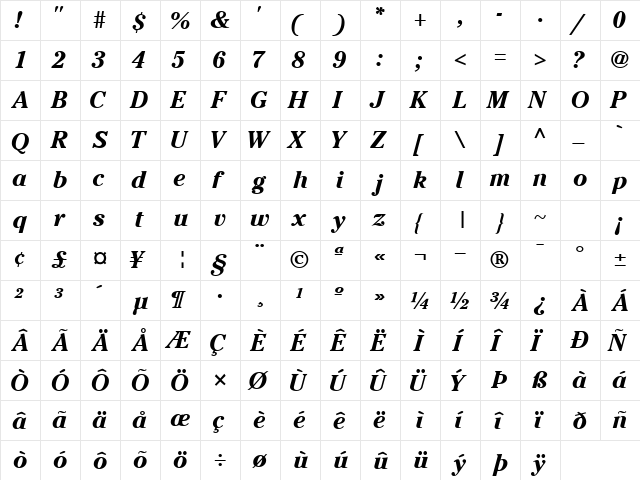
CheltenhamSSK Bold Italic Font Preview
Design Context for CheltenhamSSK Typeface
CheltenhamSSK takes a measured approach to typography — its balanced proportions and neutral character make it a reliable workhorse for both digital and print work. Its italic angle brings a sense of urgency and motion to the letterforms. The heavy weight commands attention and anchors typographic hierarchies.
Pro Tip: Try CheltenhamSSK for annotation and caption copy alongside an upright companion — the contrast in angle creates a dynamic but ordered typographic system.